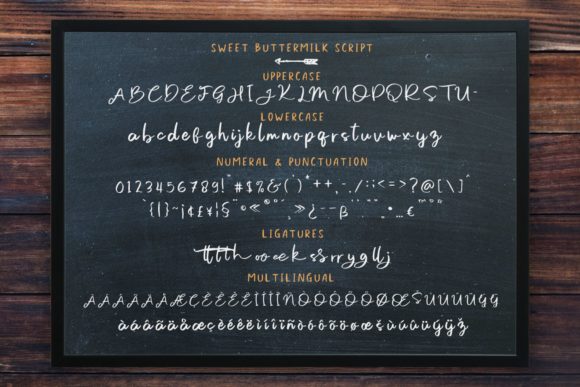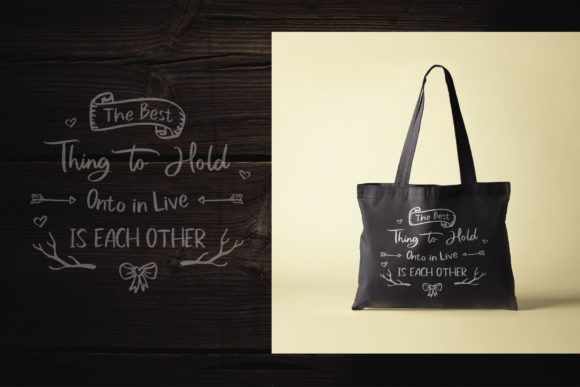
Sweet Buttermilk Duo Font
db-ku.com - Script & Handwritten -- The Sweet Buttermilk is a fun font duo. It’s whimsical letters have a playful feel and were based on real handwriting. This typeface lets you transform type into an exciting and beautiful piece of work. The irregular, hand-lettered look adds a real human touch to things and comes along with a lot of loving details.